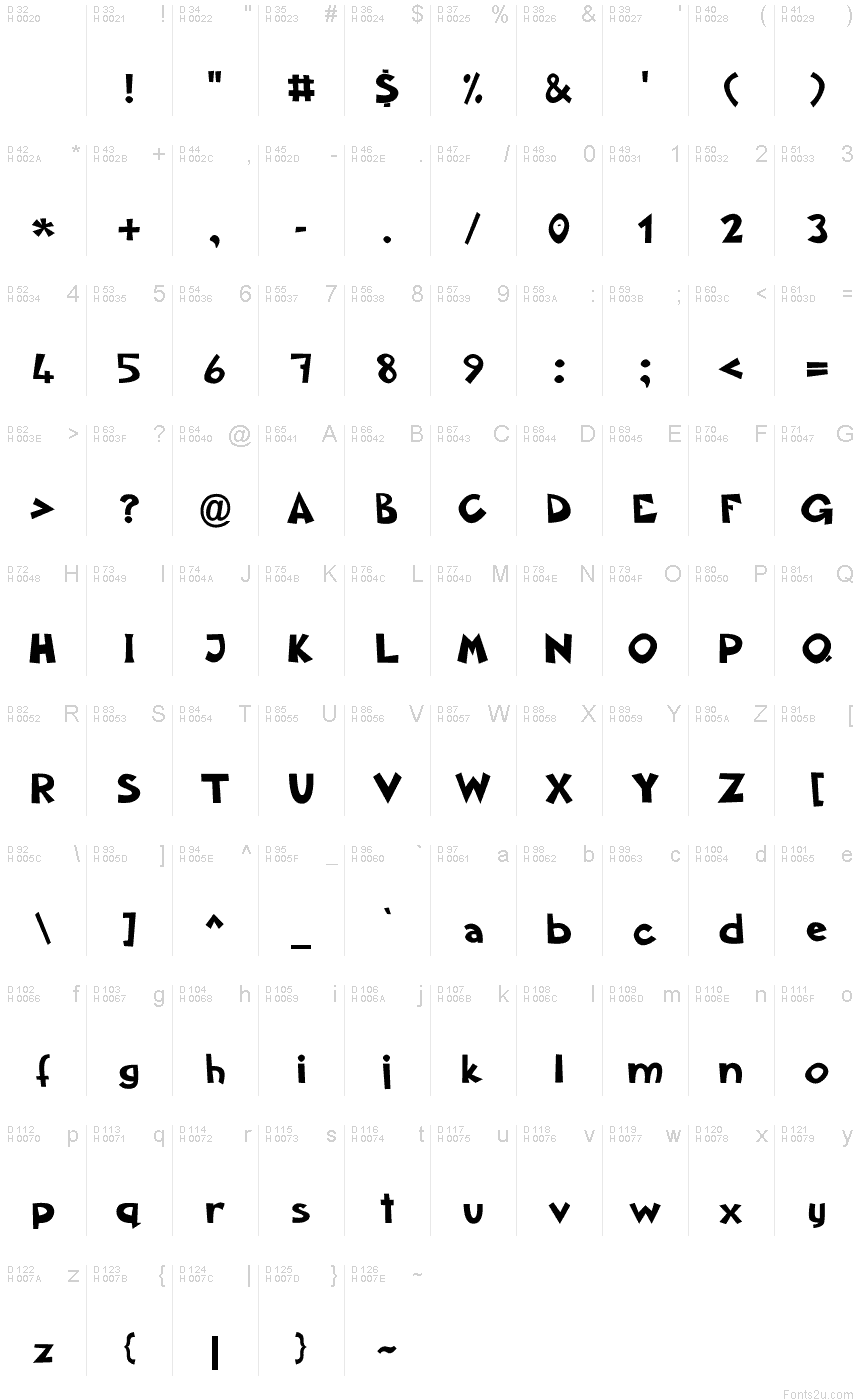
Aklatanic TSO
Aklatanic TSO font by Copyleft by Thomasso is a free comic display typeface with loud, chunky letters that feel hand-cut and slightly mischievous. The bold strokes, tilted angles, and bouncy rhythm give it that scribbled-on-a-notebook margin energy, but with enough consistency to stay readable. It has a thick, inky presence that jumps off the page or screen, adding instant personality wherever you drop it.
Using Aklatanic TSO font, headlines and short phrases snap into focus, making it a natural fit for comic panels, kids’ book covers, posters, stickers, playful logos, and YouTube thumbnails. This free font works best at larger sizes where its uneven curves and heavy weight can really show off. Pair it with a clean, simple sans serif for body text to keep layouts fun but legible.